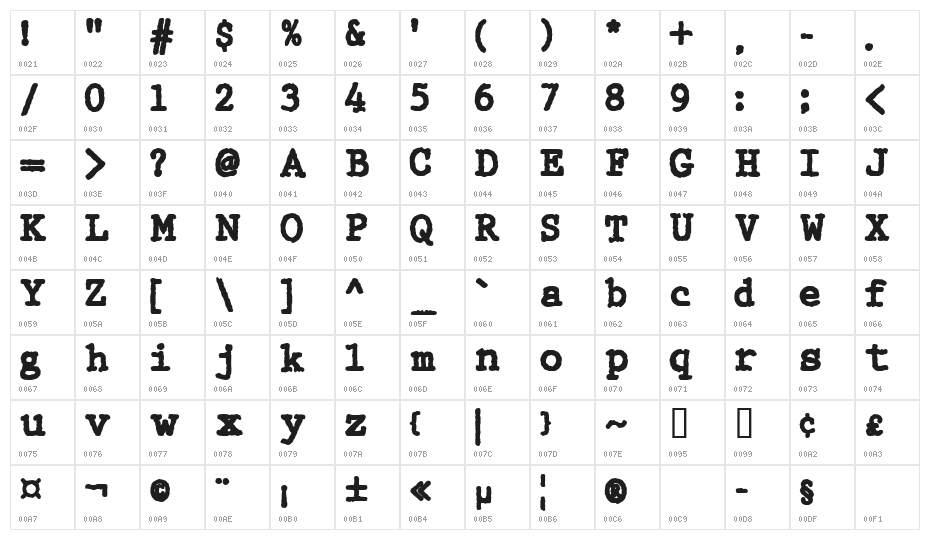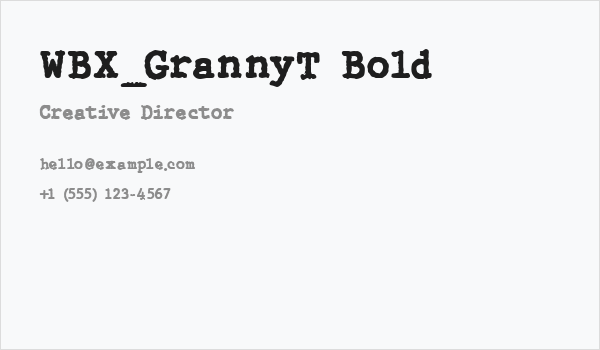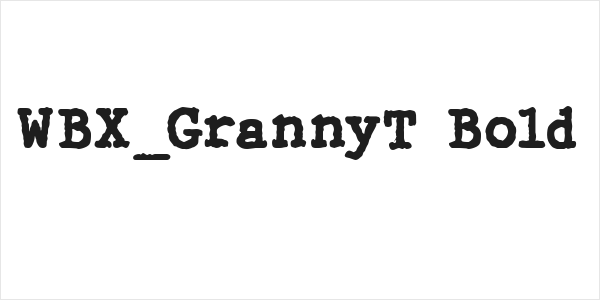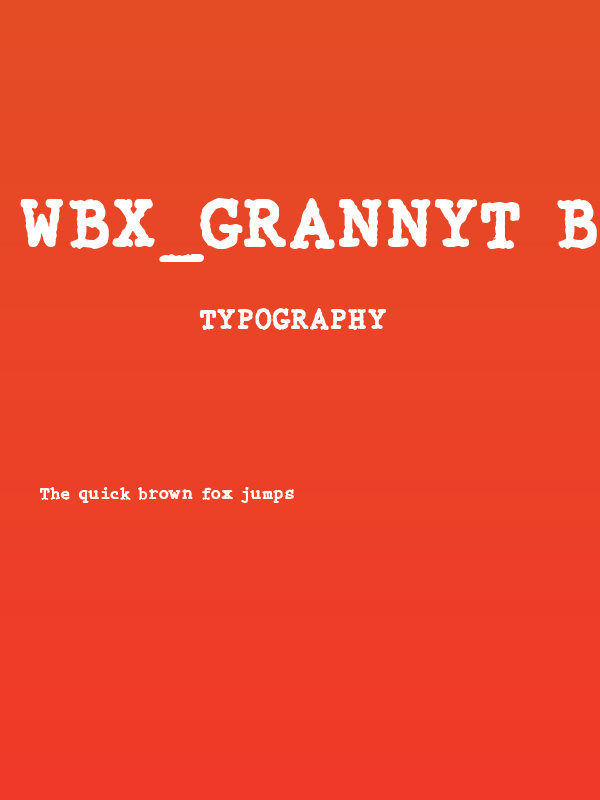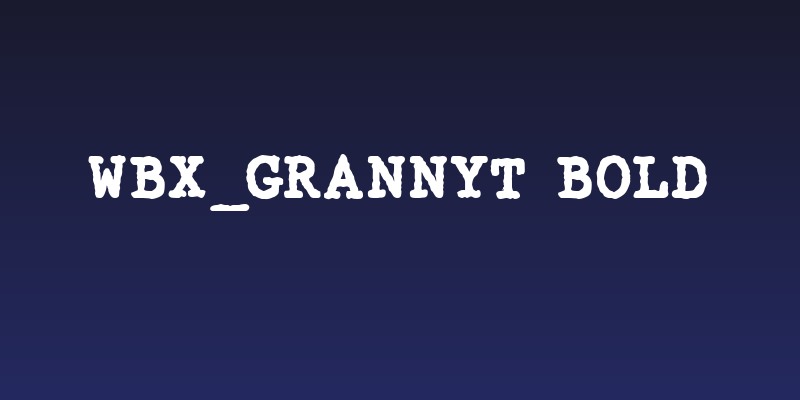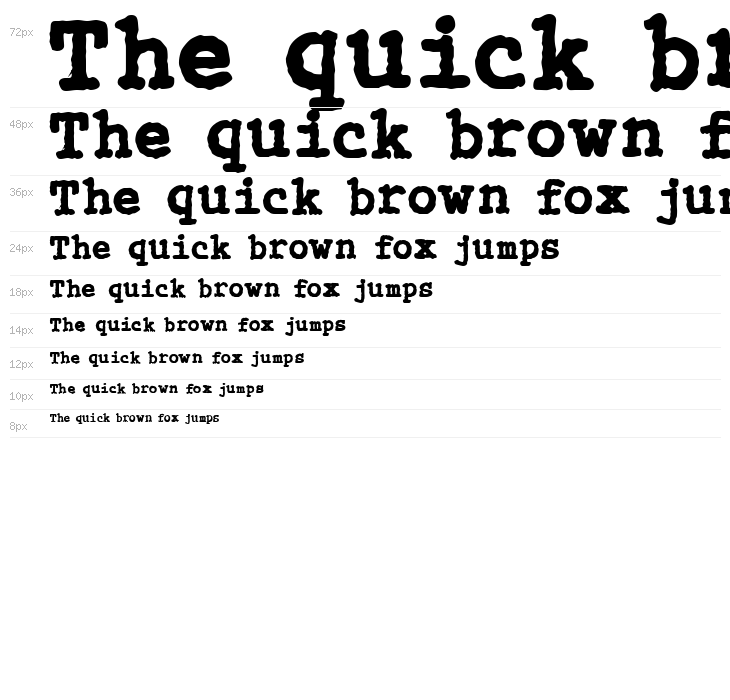
WBX_GrannyT Bold Font
WBX_GrannyT Bold Description
This font features a bold and rugged appearance, characterized by its thick, uneven strokes and slightly distressed look. The uppercase and lowercase letters maintain a consistent weight, giving it a strong presence. The numbers and special characters follow the same bold style, making them stand out. The font's irregular edges and textured finish give it a vintage, handcrafted feel, reminiscent of old typewriter fonts or stamped lettering. Its unique style makes it suitable for projects that require a touch of nostalgia or a rustic aesthetic.
| Proposed Projects | Ideal for vintage-themed posters, rustic branding, or any design requiring a bold, handcrafted look. |